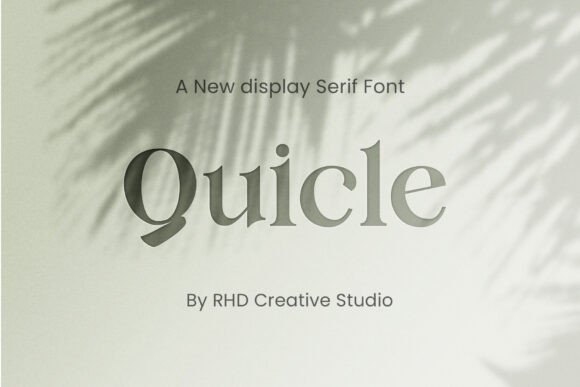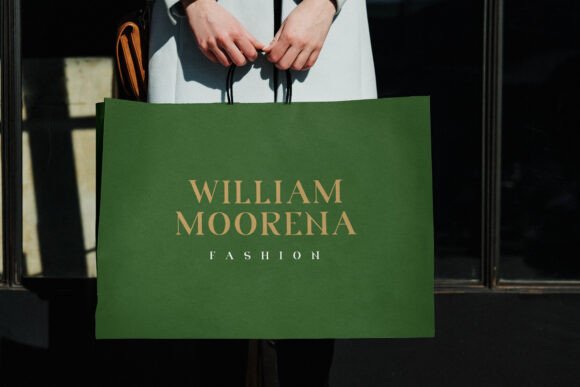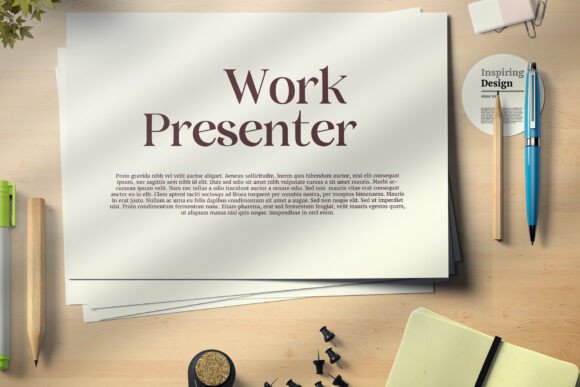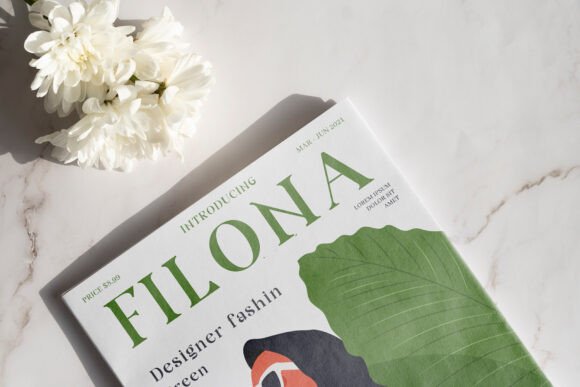
Quicle Font: Elegant Serif Typography for Modern Branding & Logo Design
About the Quicle Font
Crafted with precision, the Quicle Font is ready to bring your ideas to life. Quicle is a classy, modern serif font with a soft yet confident presence. Designed with elegant curves and subtle contrast, it’s perfect for branding, editorial layouts, product packaging, and sophisticated social media graphics. Its balance of sharp serifs and graceful details makes Quicle ideal for projects that need both style and readability.
Quicle excels in headlines, logos, and short-form text where its elegant details shine. It’s a strong choice for branding projects aiming for a sophisticated yet approachable feel, particularly those in the fashion, beauty, or luxury goods sectors. However, its refined serifs make it less suitable for lengthy body text or UI elements where high readability is paramount.
Pairing Quicle with a clean sans-serif like Open Sans for body copy creates a balanced and modern aesthetic. For a more playful feel, consider a handwritten script font like Pacifico for accents, while a geometric sans-serif such as Montserrat offers a contemporary contrast for a bolder brand identity.
Quicle projects an overall air of refined confidence. Its soft curves temper its sharp serifs, resulting in a sophisticated yet friendly personality. This makes it perfect for brands seeking to convey both elegance and approachability.